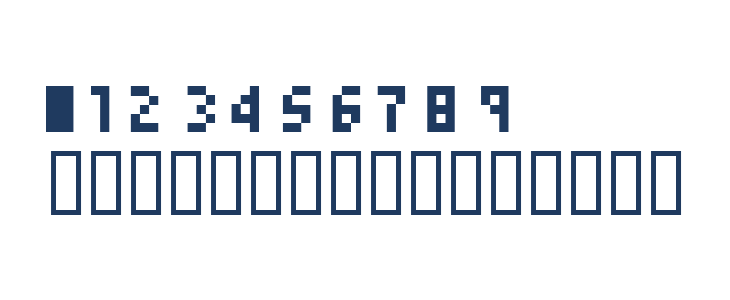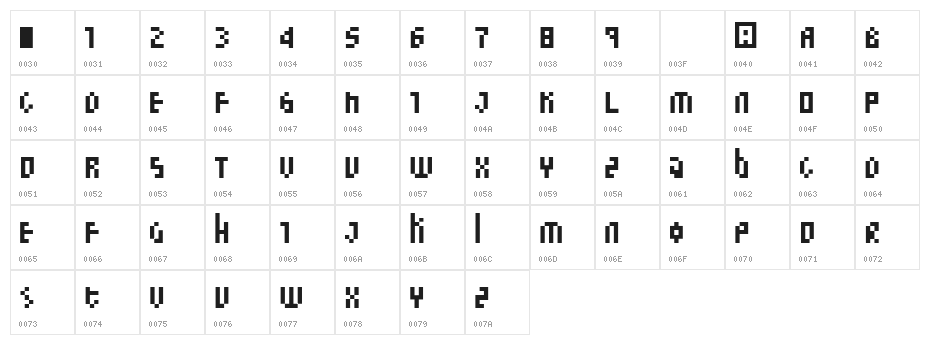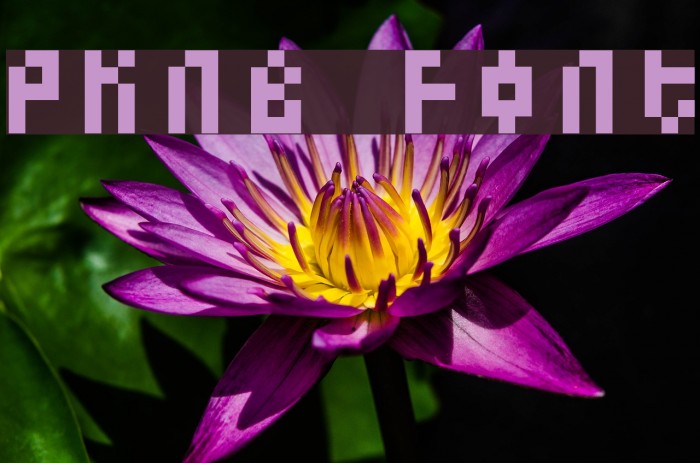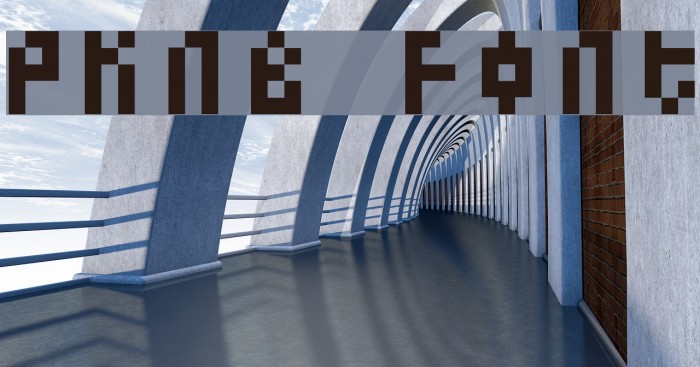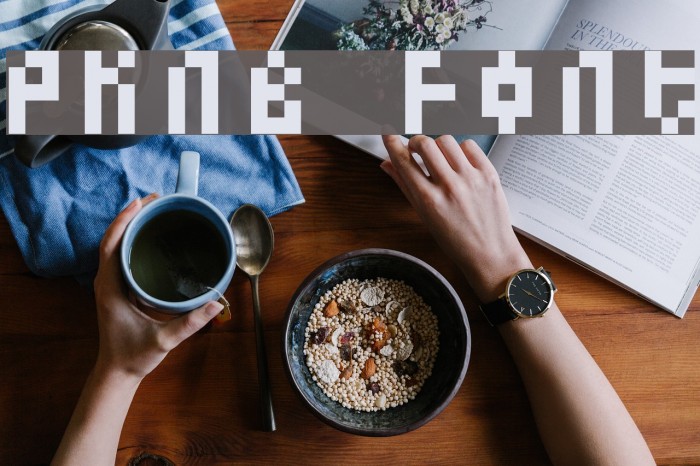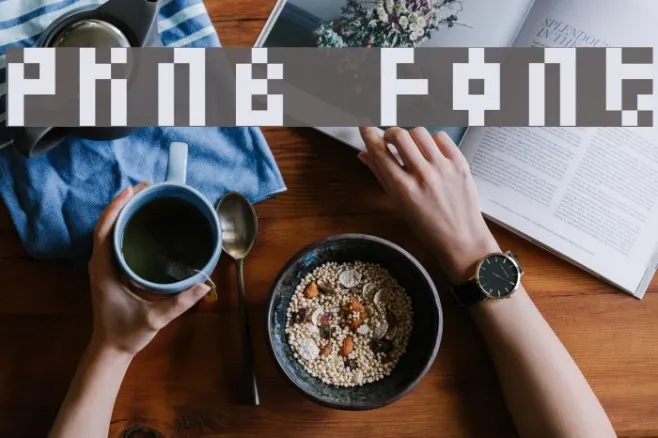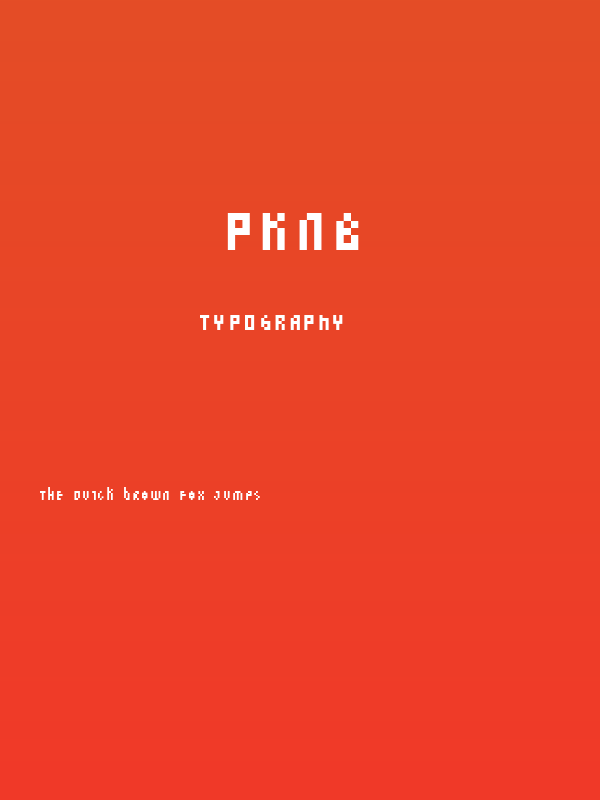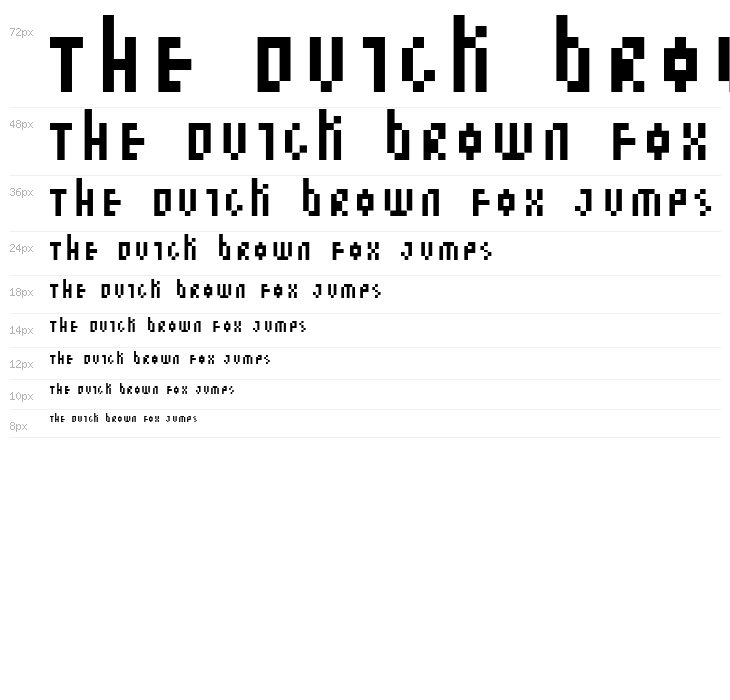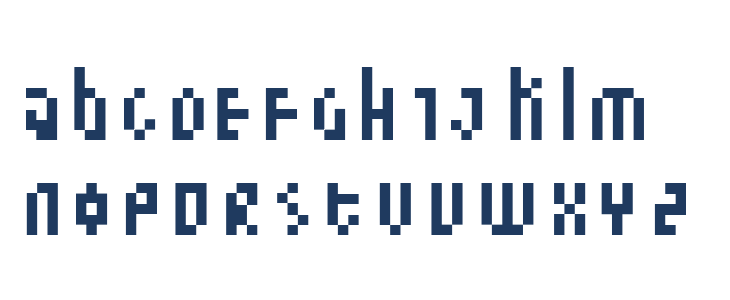
pKNB Font
pKNB Description
This font is a bold, pixelated typeface that embodies a retro, digital aesthetic reminiscent of early computer graphics and video games. Each character is constructed with a blocky, grid-like structure, giving it a distinctly geometric and modular appearance. The uniformity in stroke width across all characters contributes to a cohesive and consistent look. The uppercase and lowercase letters maintain a similar height, enhancing the font's compact and uniform style. Numbers and special characters are designed with the same pixelated approach, ensuring visual harmony throughout. This font's nostalgic charm makes it ideal for projects that aim to evoke a sense of vintage digital culture.
| Use Case | Logos, Headlines, Digital Art |
| Proposed Projects | Ideal for video game design, retro-themed posters, digital art projects, and any creative work that seeks to capture the essence of early computer graphics. |